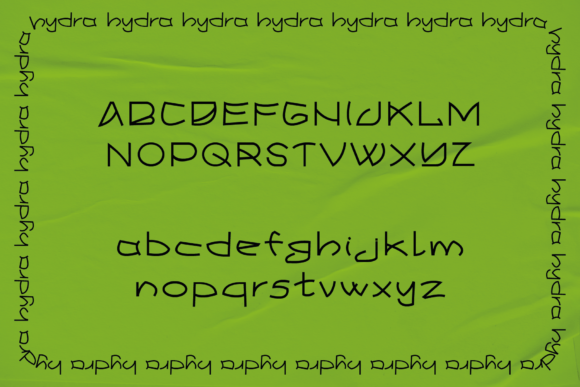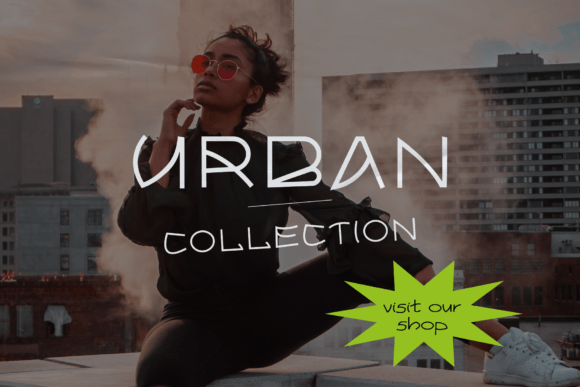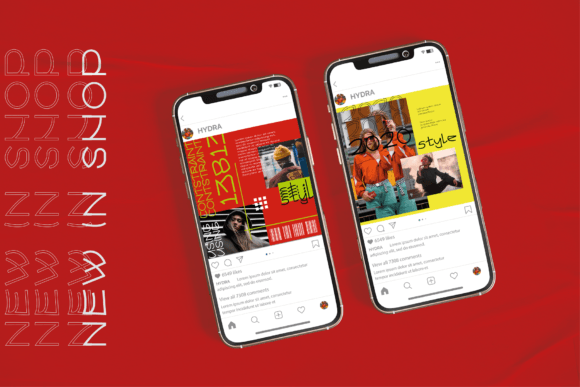
Introduction to Hydra Font
Hydra is an experimental display typeface that’s quirky and hip at the same time.
Its intricate letterforms will make your designs stand out and grab attention right away Hydra is ideal for fashion, branding, posters, apparel, packaging, web design, social media, and more.